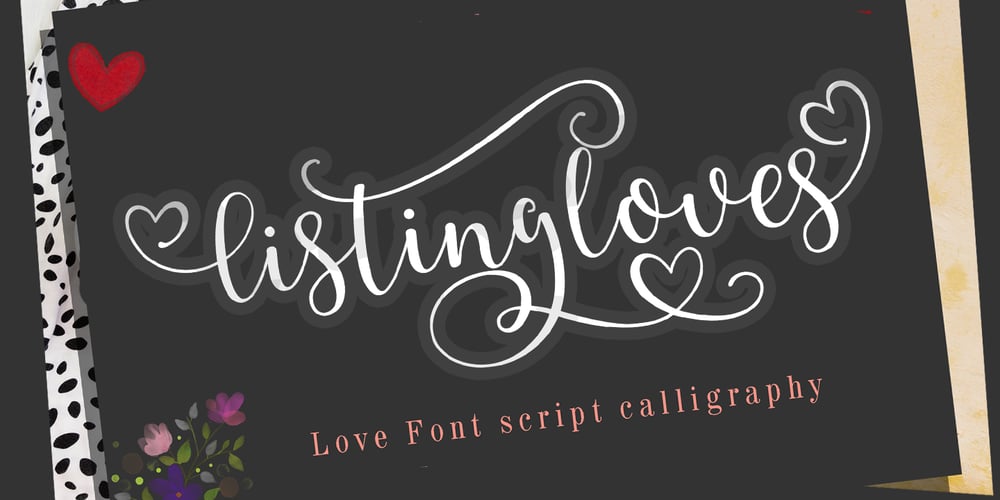
Listingloves Font Family was designed by Nasrullah and published by Sulthan Studio. Listingloves contains 1 styles and family package options. Listingloves – new, fresh, funny, interesting, cute calligraphy font with two cute hearts that can be connected. It is suitable for greeting cards, branding materials, business cards, quotes, posters and more!